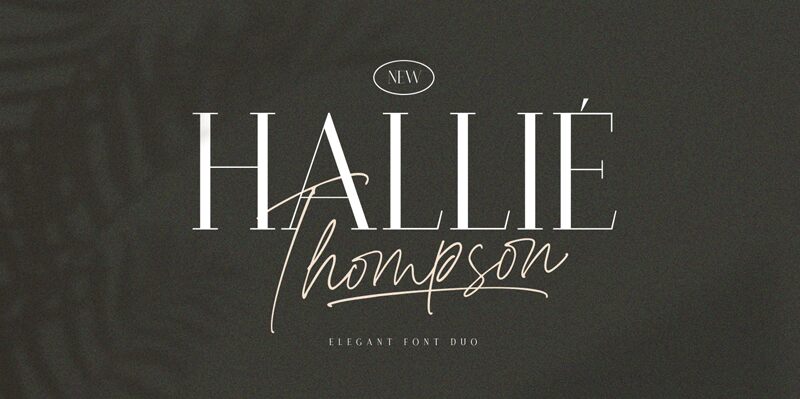
Hallie Thompson Serif, created by the talented designers at Letterhend Studio, is a refined and elegant typeface that is perfect for a wide range of projects. With its semi-light weight and condensed width, this font exudes sophistication and professionalism.
For business presentations or corporate documents, Hallie Thompson Serif adds a touch of class and professionalism. Its clean lines and clear legibility make it ideal for body text in reports or newsletters.
The refined nature of Hallie Thompson Serif also makes it suitable for wedding invitations or formal event announcements. Its elegant serifs bring a sense of tradition and grace to any design.
In the realm of editorial design, this font shines as well. Whether it's in magazines or book covers, Hallie Thompson Serif stands out with its unique personality while still maintaining readability.
With its versatility and timeless charm, Hallie Thompson Serif is an excellent choice for any project that requires a touch of sophistication and elegance.